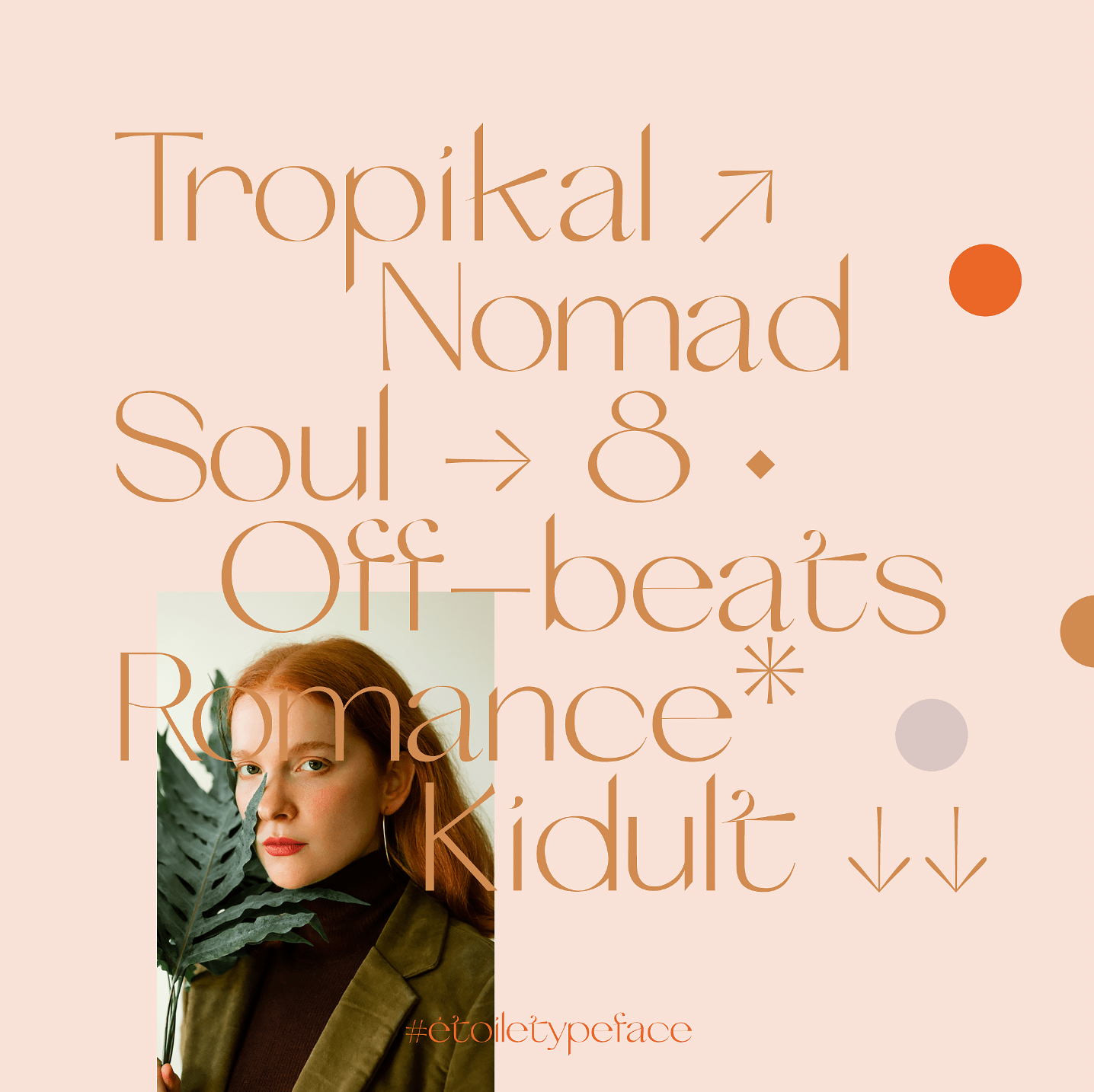
Etoile Typeface
Etoile typeface is a versatile, modern and classy sans serif font that is really original. It has a unique style especially with the f, the i and the t lowercase letters. It makes it memorable. Give your text a bit of elegance and sweetness. This font is ideal for design, fashion, creative branding, editorial design and web design.